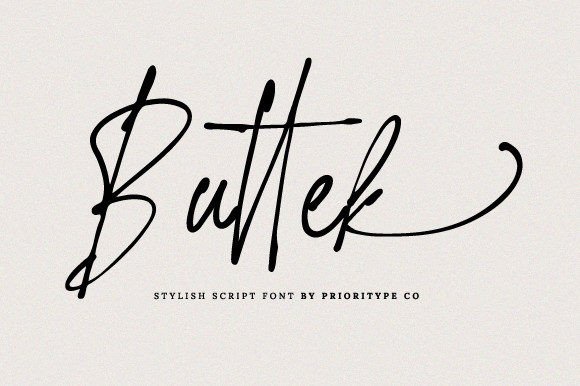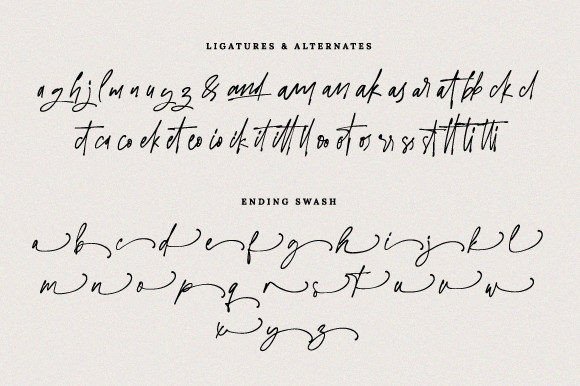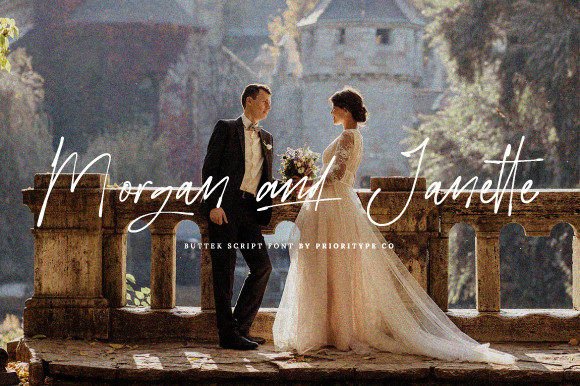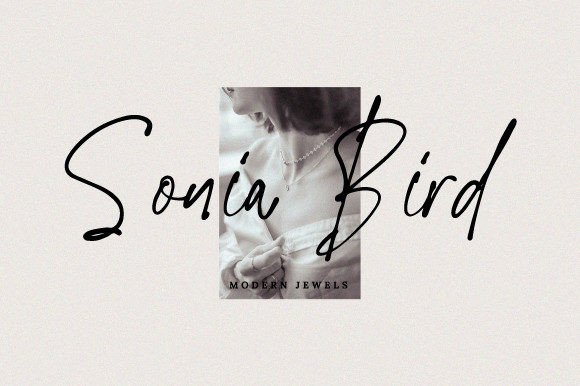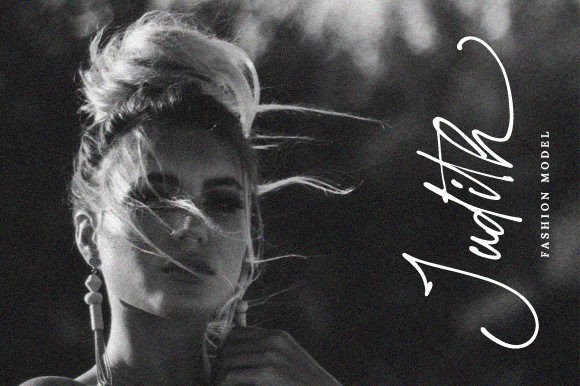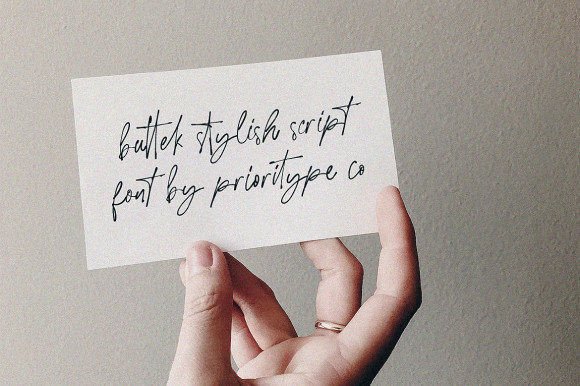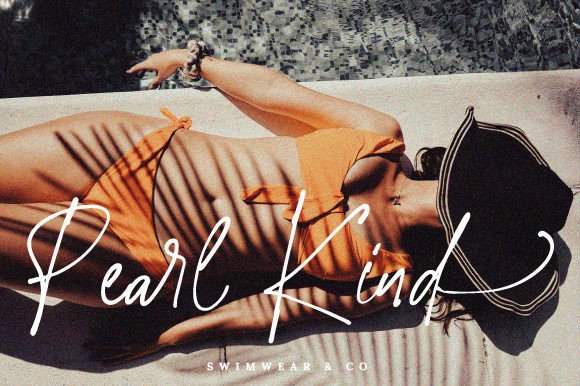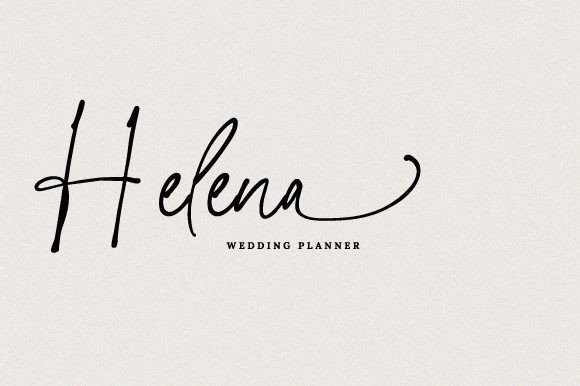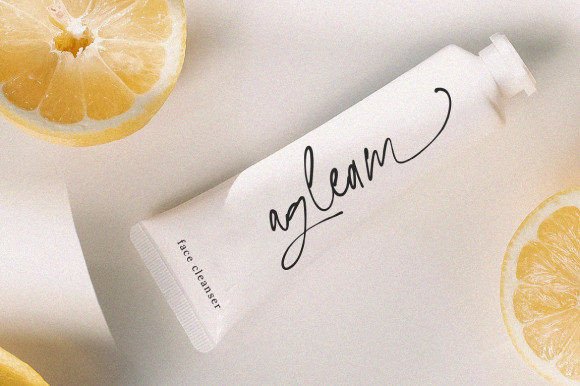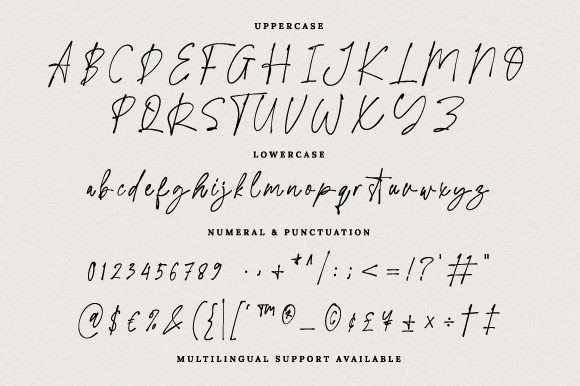
Buttek Font
Introducing Buttek Font
The Buttek Font is a gracefully designed handwritten typeface, characterized by its delicate and flowing appearance. With its beautifully balanced characters, this font exudes elegance and pairs harmoniously with a broad spectrum of design concepts. Incorporate it into your most imaginative projects, and witness how it breathes life into your creative visions. Additionally, “Buttek” is PUA encoded, granting you effortless access to an extensive array of glyphs and swashes.
Why Choose This Typeface?
• Elegant and Flowing: Buttek adds a touch of sophistication to your designs, making it suitable for formal documents, artistic pieces, and more.
• Versatile Usage: This font provides a visually captivating choice for various creative endeavors, allowing you to infuse your designs with elegance and style.
Applications of Buttek
• Branding: Use this font to enhance your brand’s visual appeal with its delicate characters.
• Signatures: Add a personal touch to documents and correspondence with Buttek’s unique style.
• Advertisements: Perfect for creating eye-catching promotional materials that draw attention.
The Impact of Using Buttek
This font elevates your designs by making them visually captivating and memorable. It becomes a reliable tool for designers seeking to create projects that stand out with elegance. Its balanced form ensures your designs are both refined and captivating.
The Value It Brings
This typeface excels in combining contemporary design aesthetics with classic elegance. By choosing Buttek, you ensure your designs are not only visually appealing but also sophisticated and unique. Additionally, its PUA encoding allows easy access to all glyphs and swashes for added customization.
This font is also ideal for various creative projects beyond traditional uses. It can enhance digital designs with its elegant flair, making it suitable for websites, brochures, or mobile interfaces. The Buttek Font adapts well to different screen sizes while maintaining its charm. As design trends evolve, this font remains relevant due to its timeless appeal, balancing style with functionality effectively.